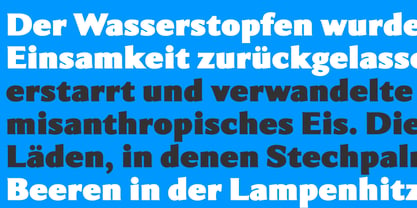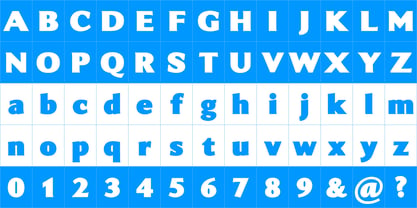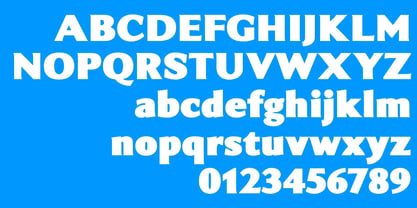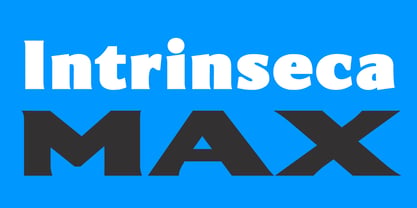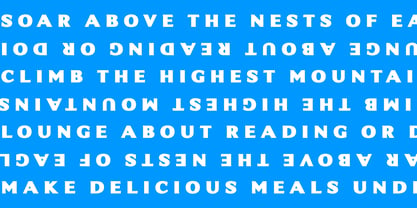
Intrinseca Max
Die Schriftfamilie Intrinseca Max wurde von Nicholas Garner entworfen und von AVP veröffentlicht. Intrinseca Max enthält 1 Stile. Mehr über diese Familie
Intrinseca Max is an extra bold version of Intrinseca Nova. Although strictly a titling form, it contains a full complement of characters and may be confidently used in text. The Intrinseca Nova family is modelled on traditional serif letterforms but with low-contrast strokes and a generous x-height. The family has a clean appearance and excellent readability. Six weights plus italics, small caps and extended language support make Intrinseca ideal for magazines, books and web – wherever distinctive headings and a variety of text options are required. Intrinseca Max contains all the OpenType features of the Intrinseca Nova family: small capitals, superscript, scientific inferiors, subscript, oldstyle figures, proportional figures, tabular figures, standard ligatures, fractions, localized forms (Dutch, Polish, Turkish, Moldavian, Romanian), numerators, denominators, capital spacing.